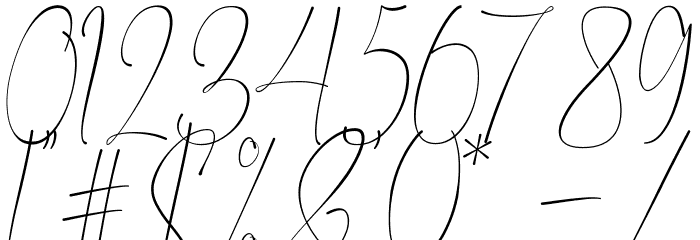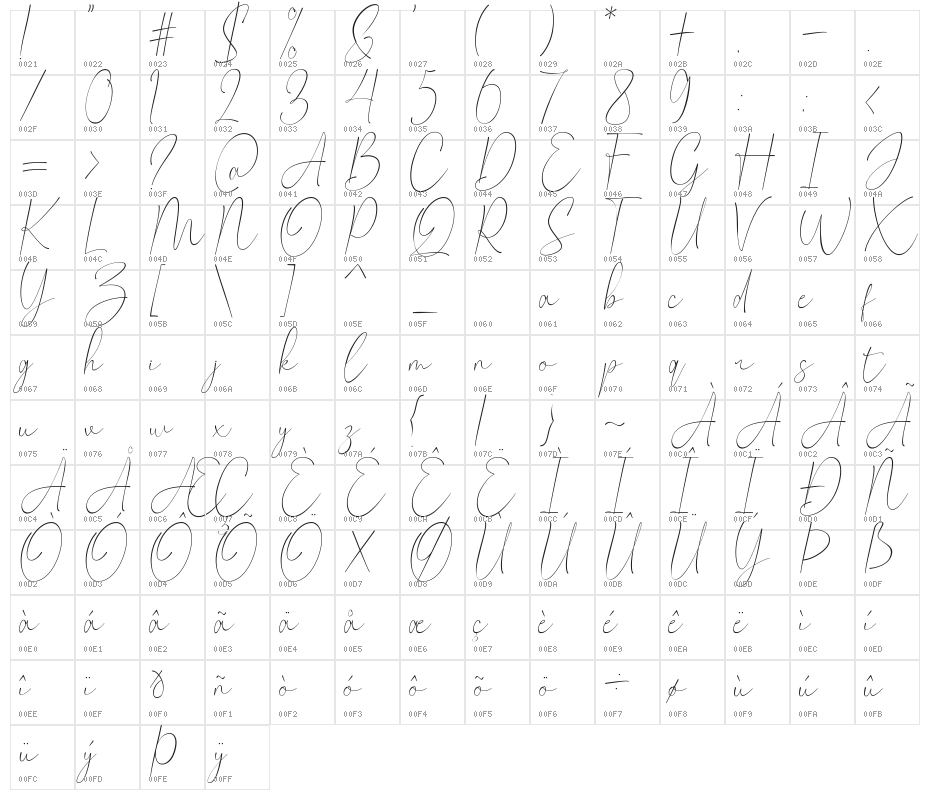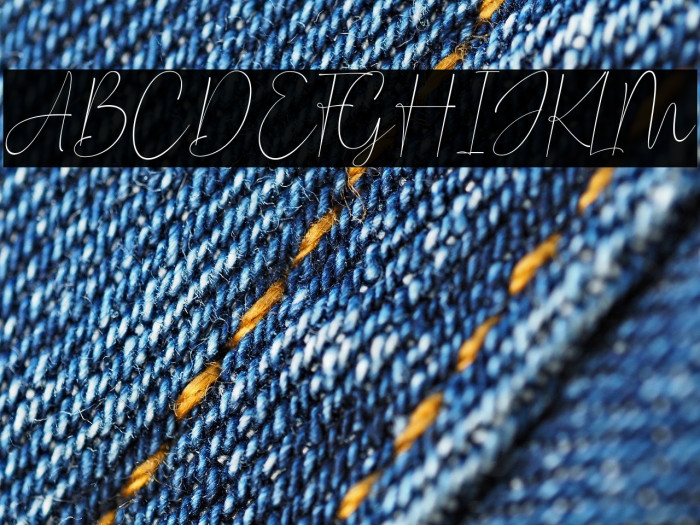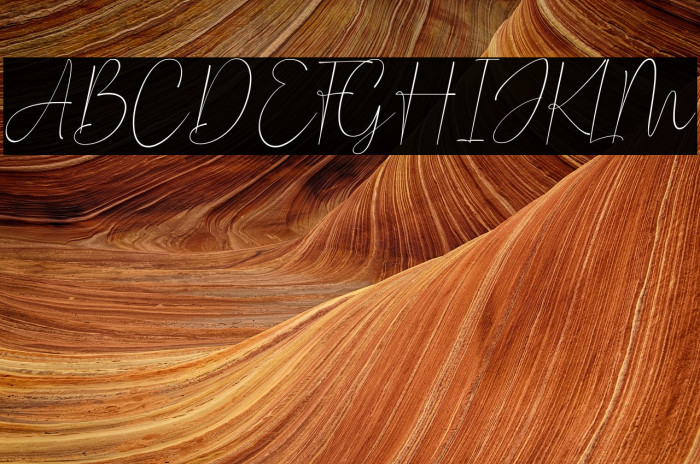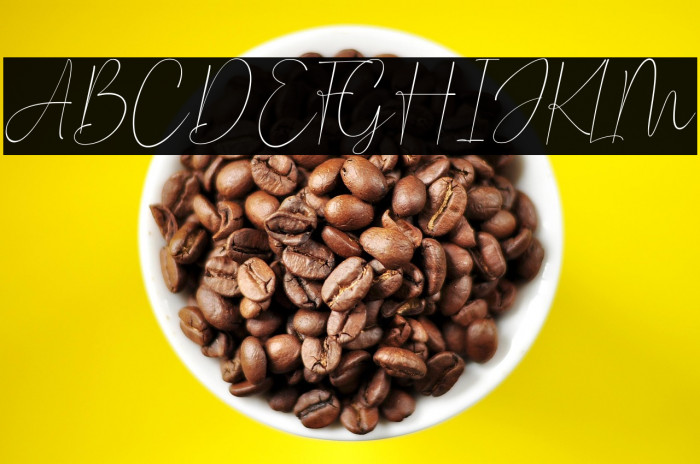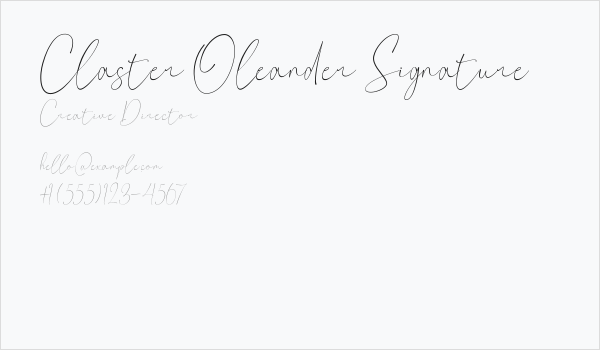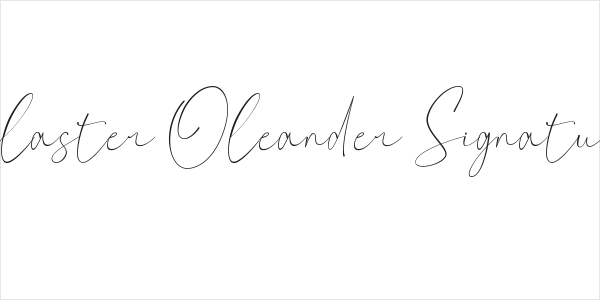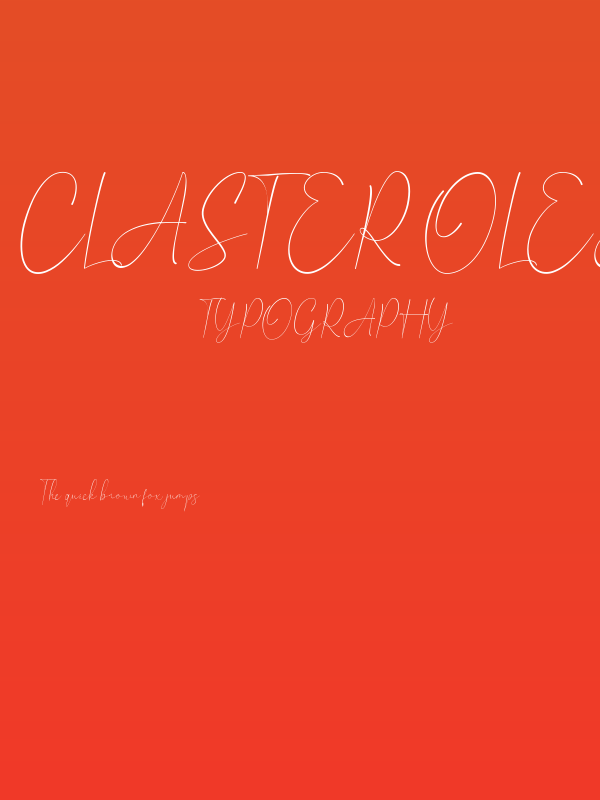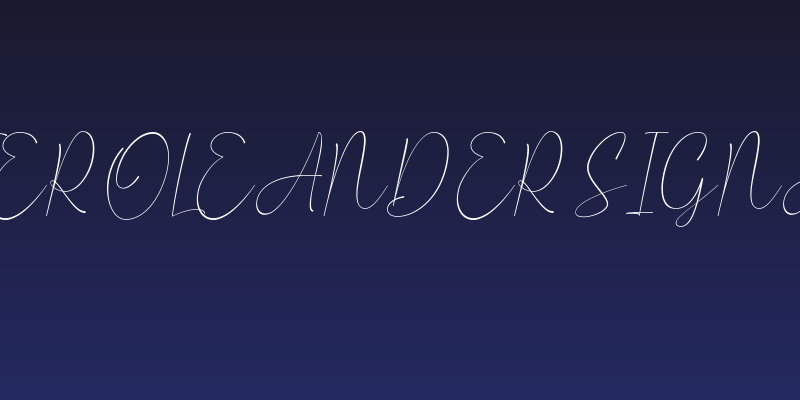
Claster Oleander Signature Font
Claster Oleander Signature Description
This font exudes a sophisticated and elegant style, characterized by its flowing, cursive script that mimics the fluidity of a handwritten signature. The uppercase letters are tall and slender, with graceful loops and curves that give them a refined appearance. The lowercase letters maintain a consistent flow, with smooth connections between each character, enhancing the overall cohesiveness of the text. The numerals and special characters are crafted with the same attention to detail, ensuring a harmonious look across all elements. This font's delicate strokes and airy feel make it ideal for projects that require a touch of elegance and personal flair.
| Proposed Projects | Ideal for wedding invitations, personal branding, elegant stationery, and luxury product packaging. |